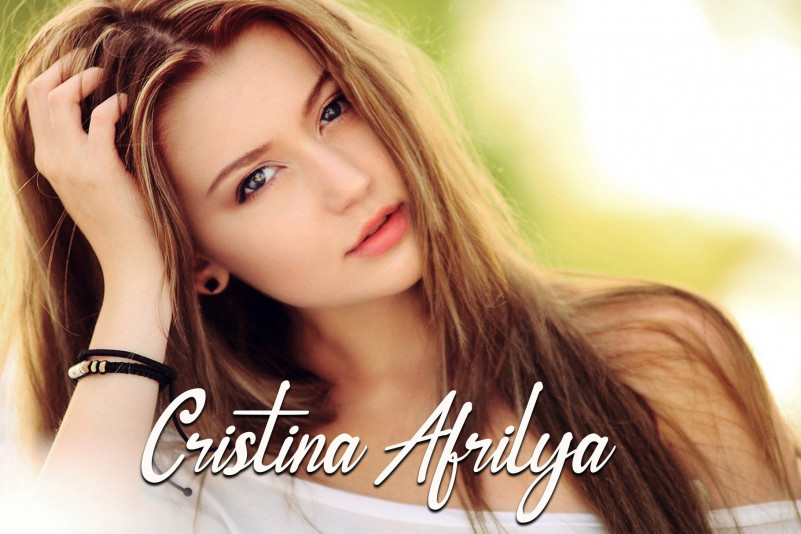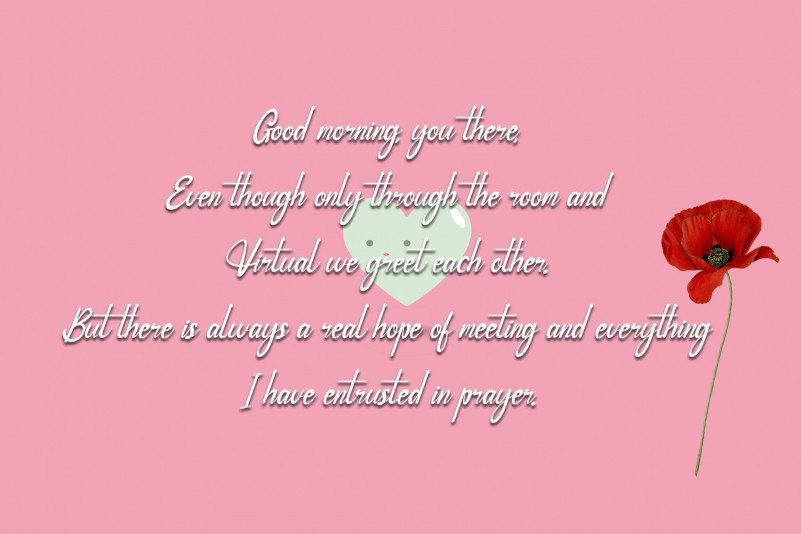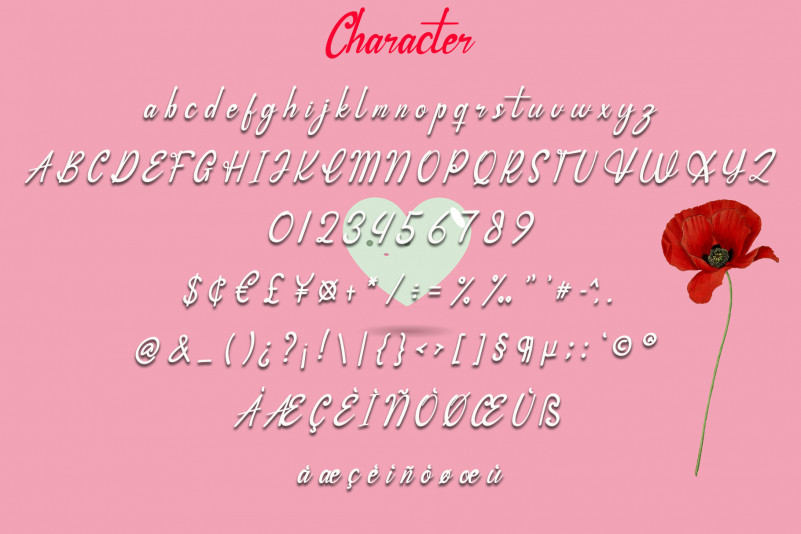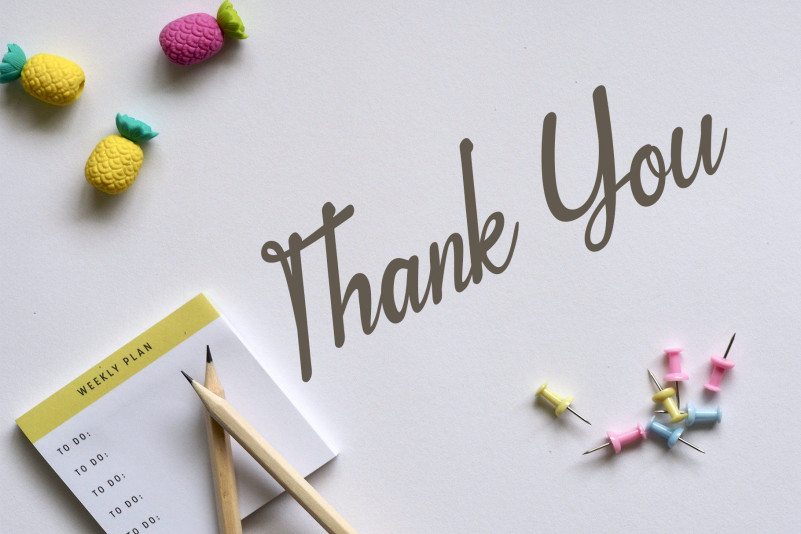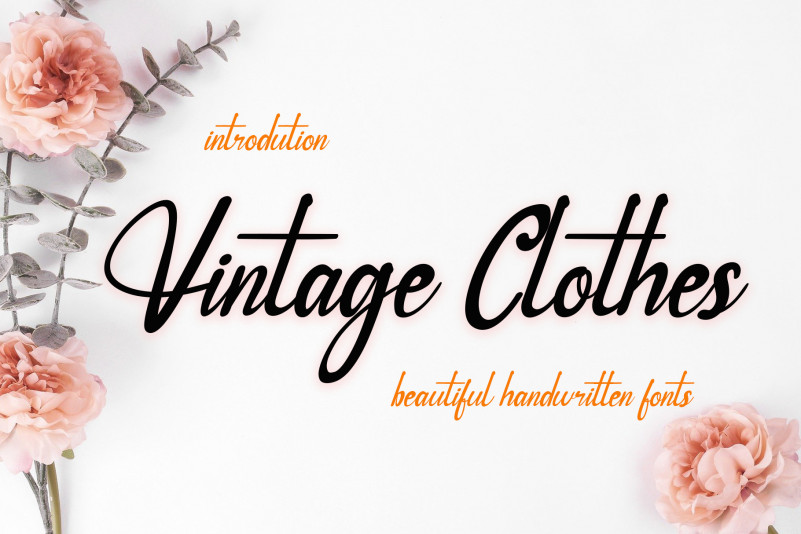
Vintage Clothes Font
Vintage Clothes Script Font
This is a beautiful, lovely and flowing handwritten font. It maintains its classy calligraphic influences while feeling contemporary and fresh. Fall in love with this font and bring your projects to the highest levels!